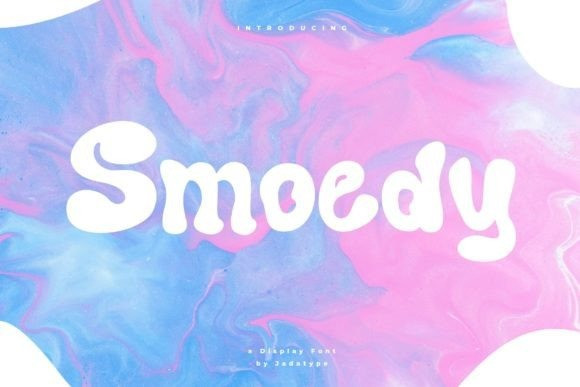
Smoedy Display Font
Smoedy Display Font is a display font with a quirky vibe. It gives the impression of being funny, playful, fun, cool, and dynamic, and can be used for your designs, events, books, social media purposes, and more.